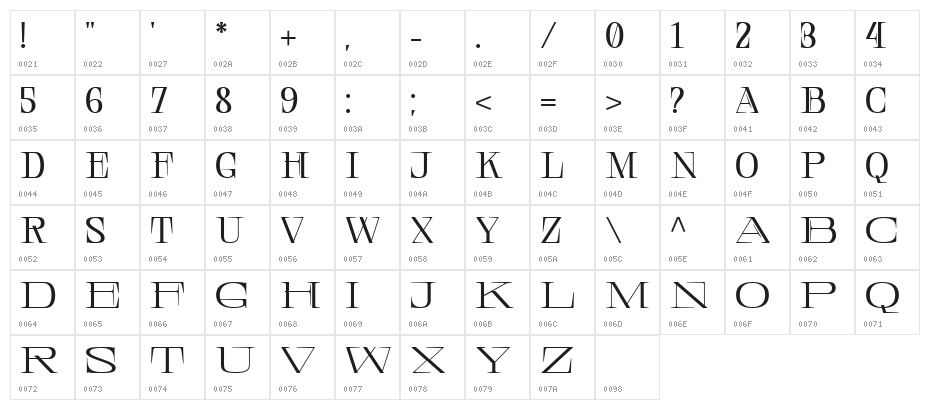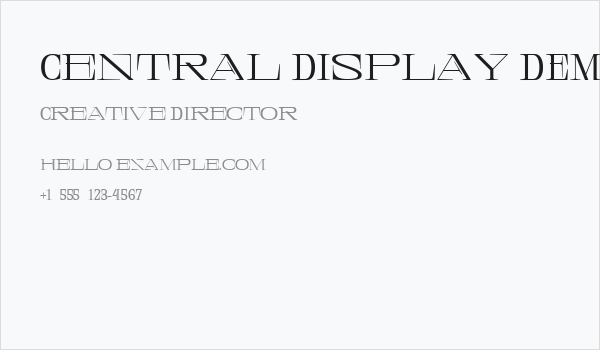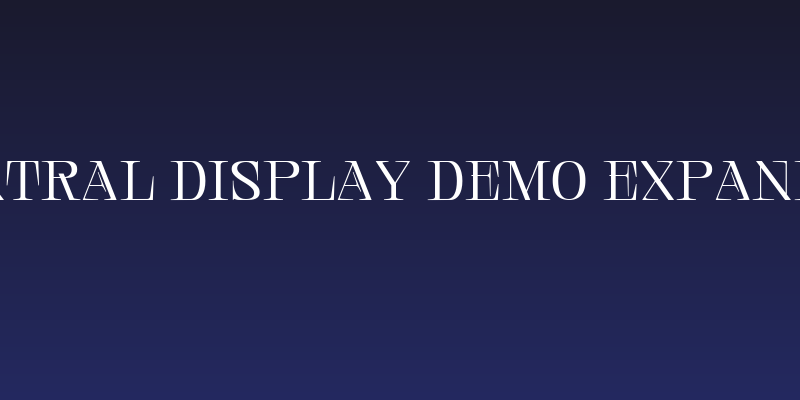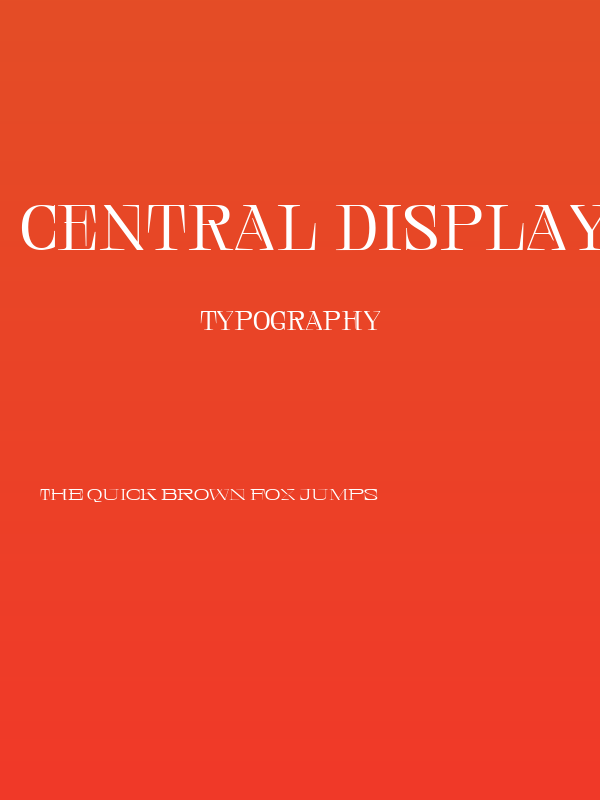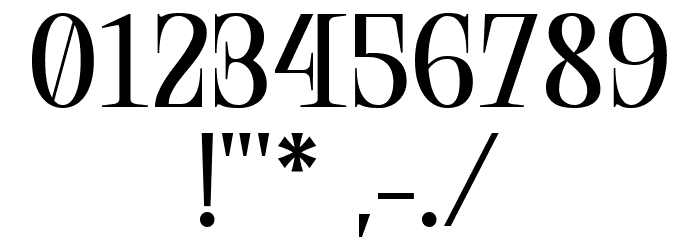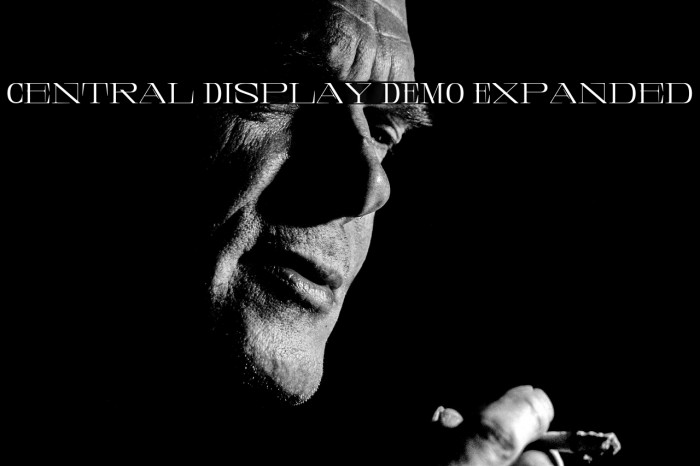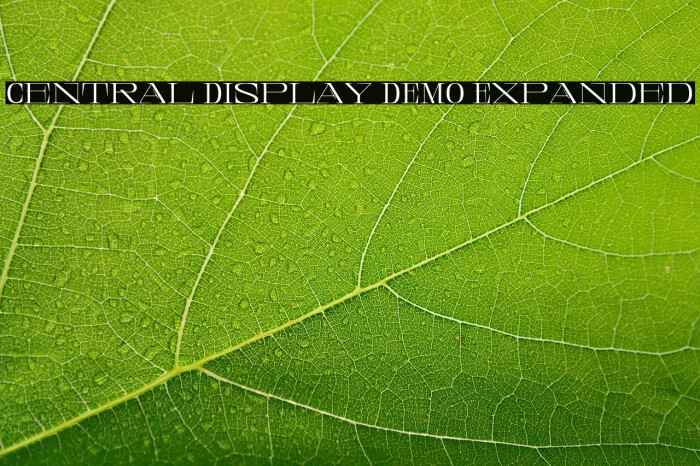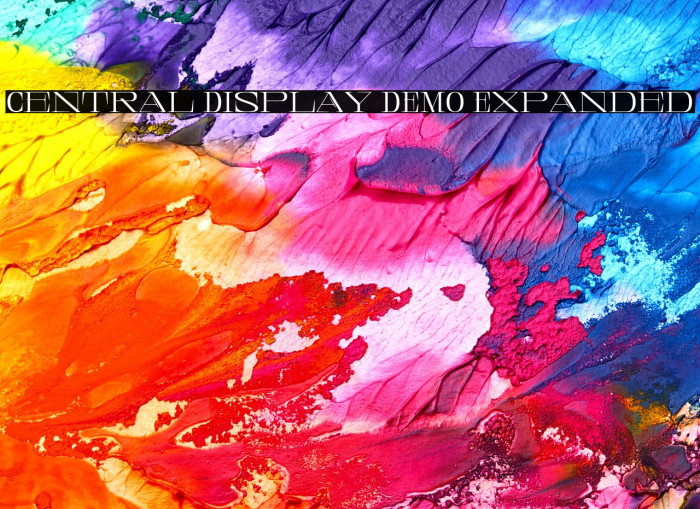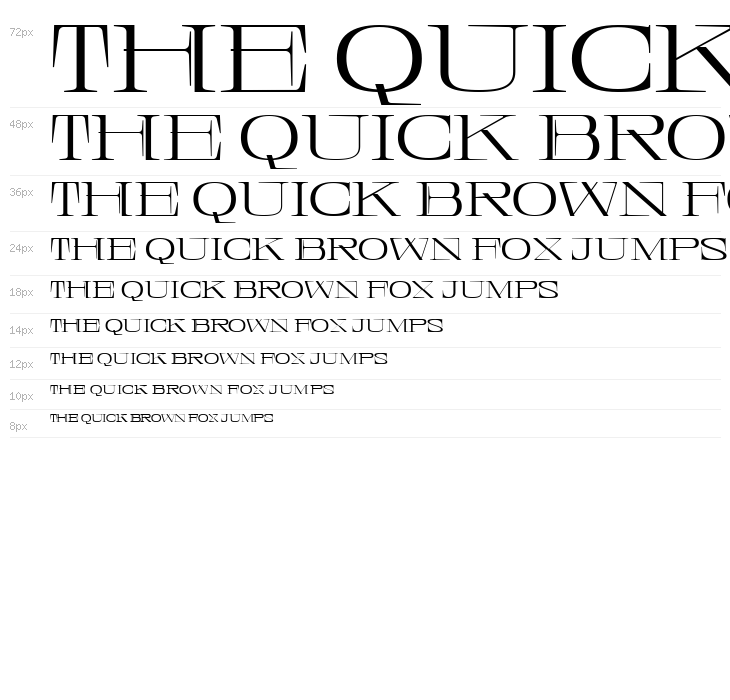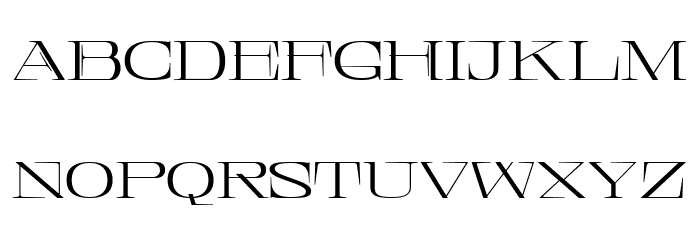
Central Display DEMO Expanded Font
Central Display DEMO Expanded Description
This font features a bold and striking design with high contrast between thick and thin strokes, giving it a dramatic and elegant appearance. The characters are expanded, providing a sense of grandeur and presence. The serifs are pronounced, adding a classic touch to the overall modern style. The uppercase letters are particularly commanding, making them ideal for headlines or titles. The numerals are equally bold, ensuring they stand out in any context. Special characters maintain the same boldness, ensuring consistency across all text elements.
| Proposed Projects | Ideal for luxury branding, magazine headlines, posters, and any project requiring a strong, elegant typeface. |